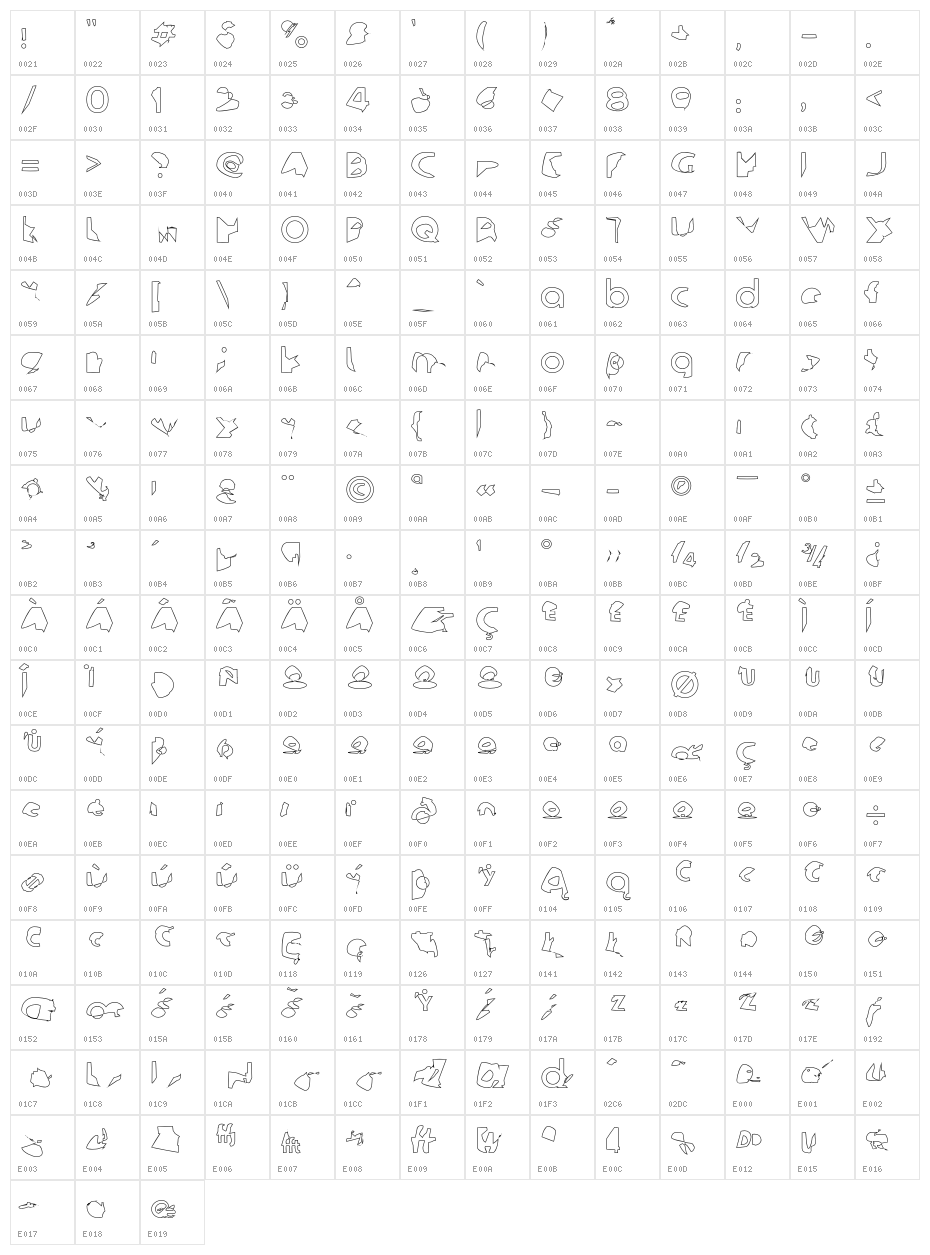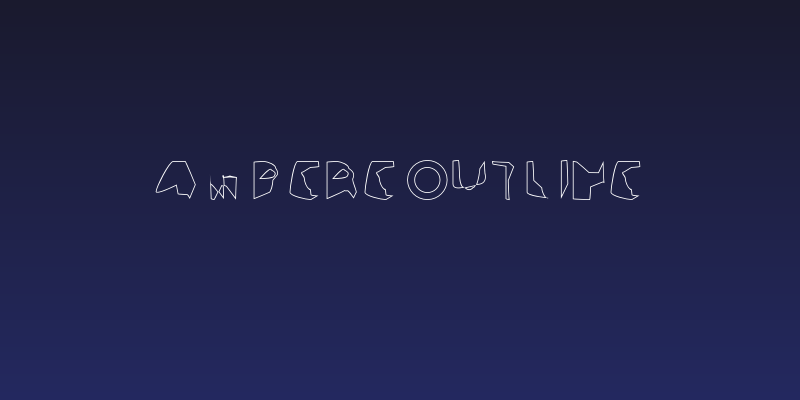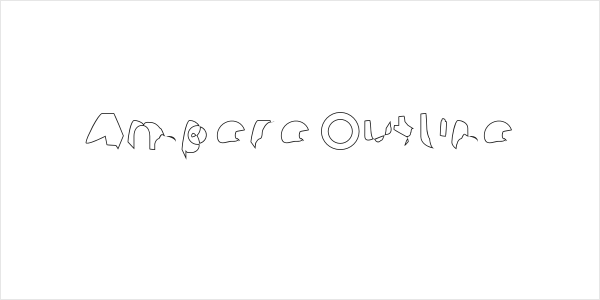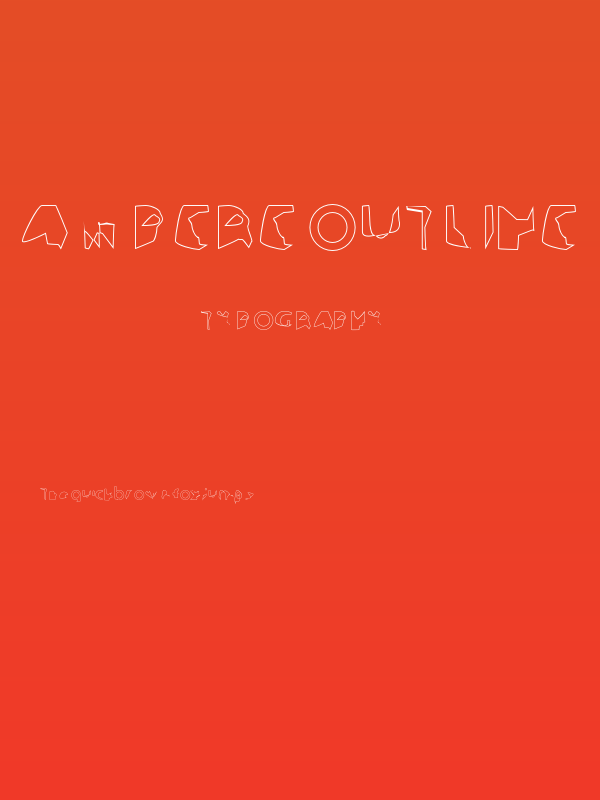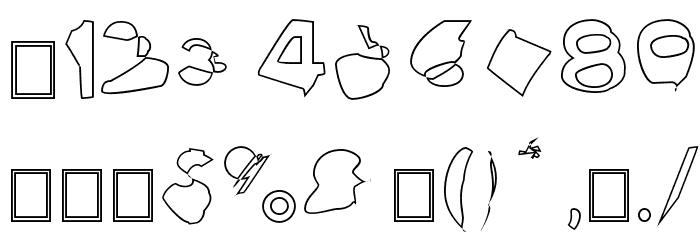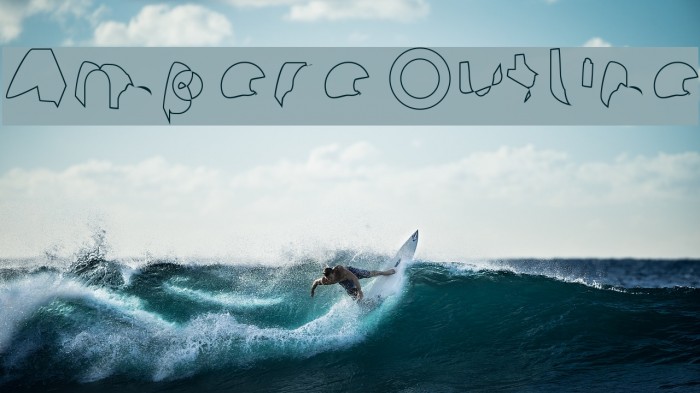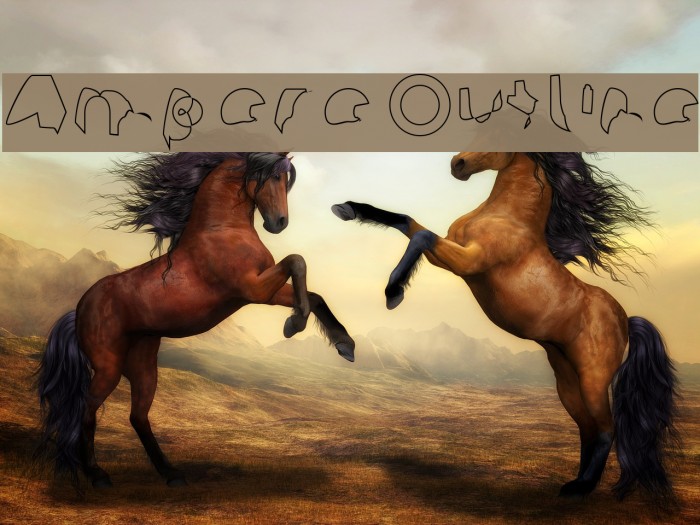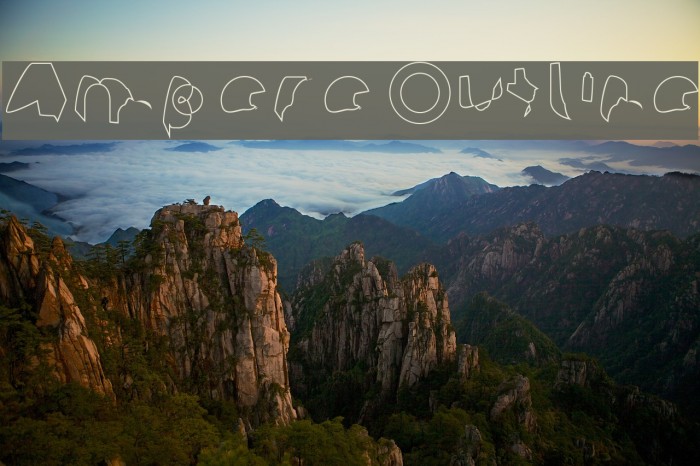
Ampere Outline Font
Ampere Outline Description
This font features a unique outline style with a modern, abstract aesthetic. Each character is crafted with a distinct, angular design that gives it a dynamic and edgy appearance. The uppercase and lowercase letters maintain a consistent theme, with sharp edges and irregular shapes that create a sense of movement and energy. The numbers and special characters follow the same design principles, ensuring a cohesive look across all elements. This font's outline style makes it stand out, providing a bold visual impact that is both artistic and contemporary.
| Proposed Projects | Ideal for creative projects such as album covers, posters, branding for edgy or modern brands, and artistic designs. |